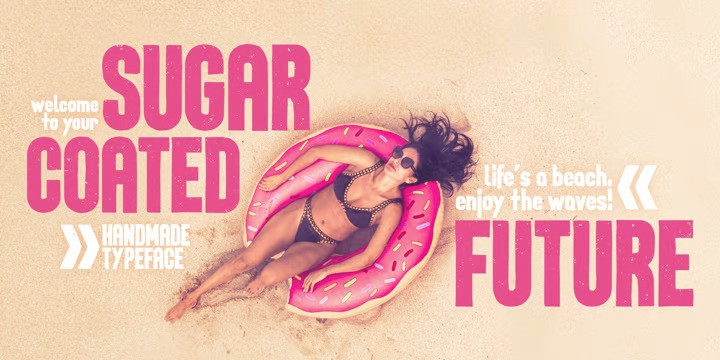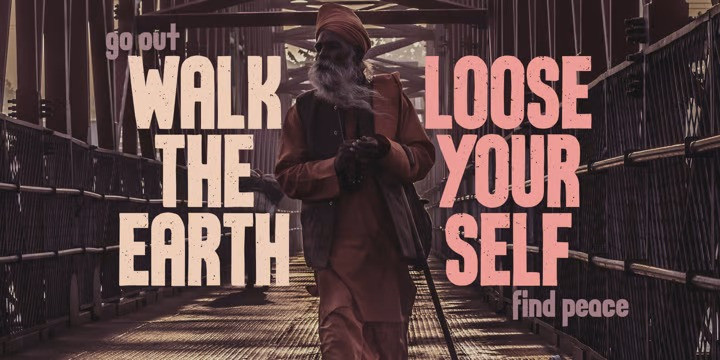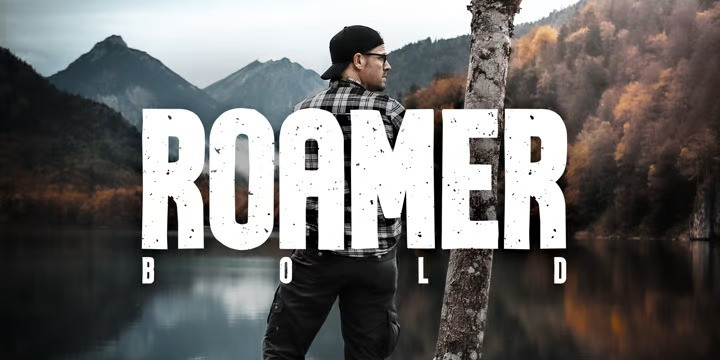
Roamer Font
The Roamer Display Font is big, bold and ready to be used by designers all over the globe.
The appearance is quite rough and used like weathered wood or paint on concrete.
It is perfect for big headlines or bold text passages.